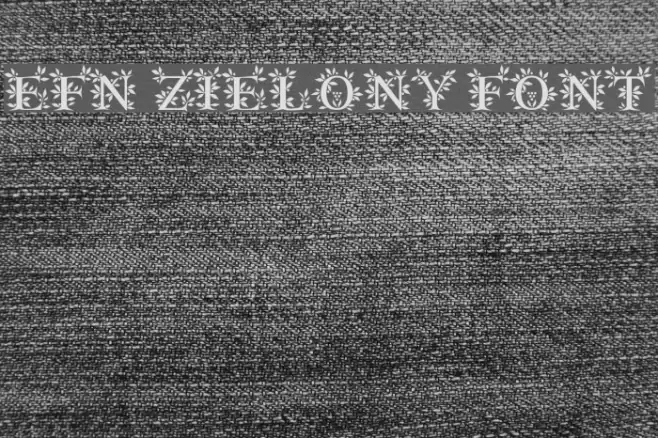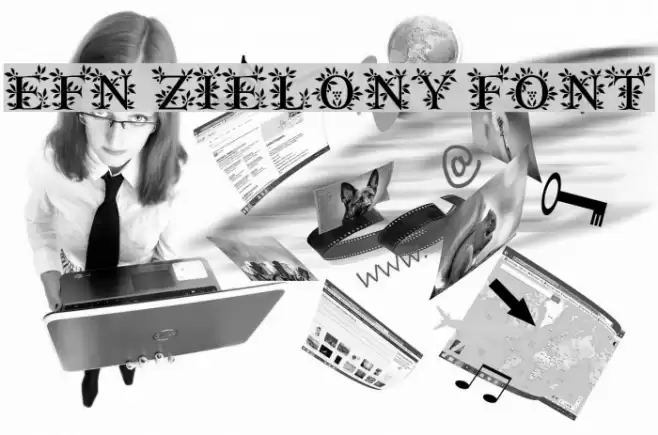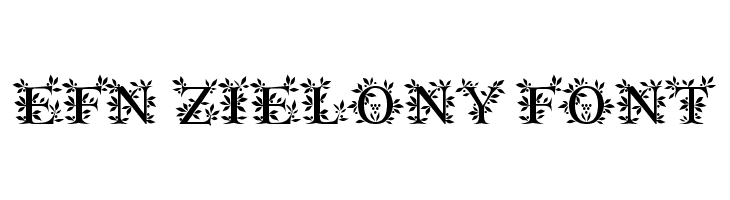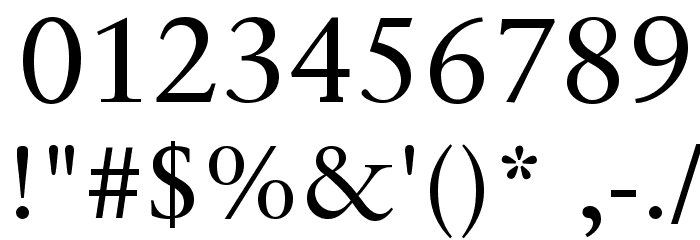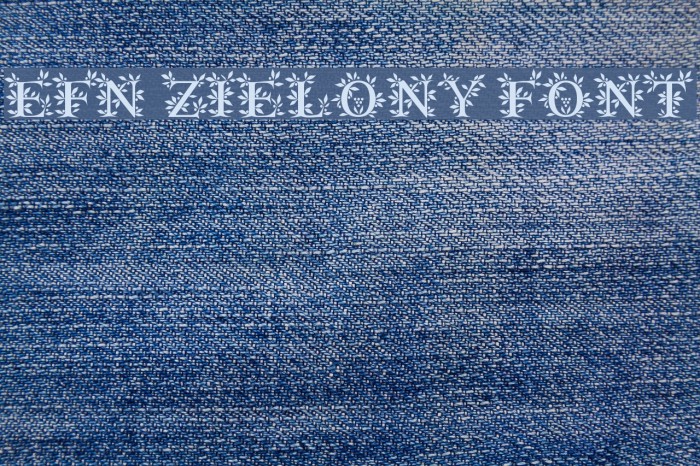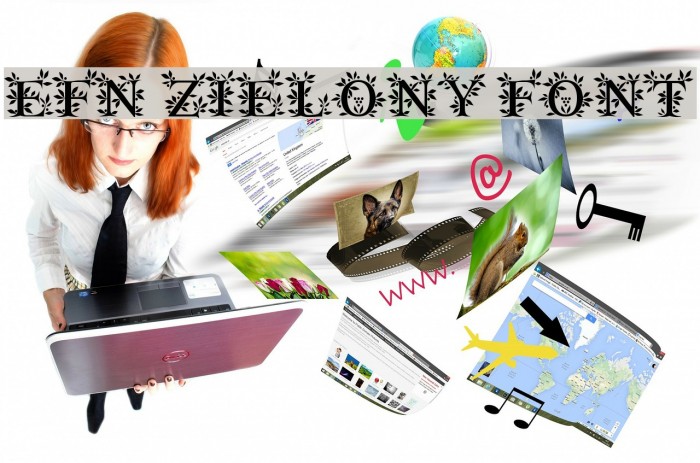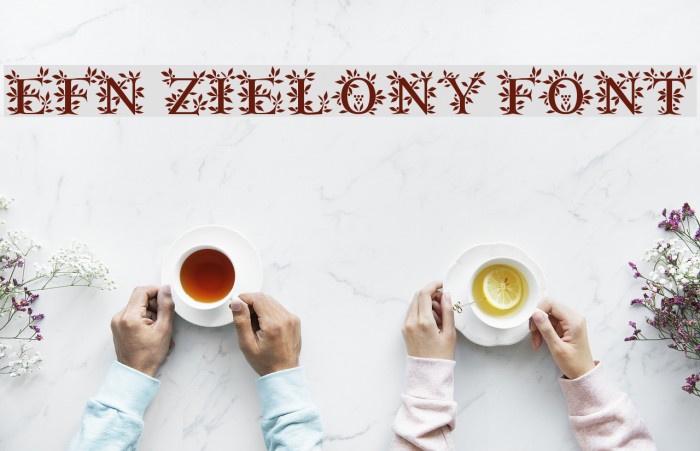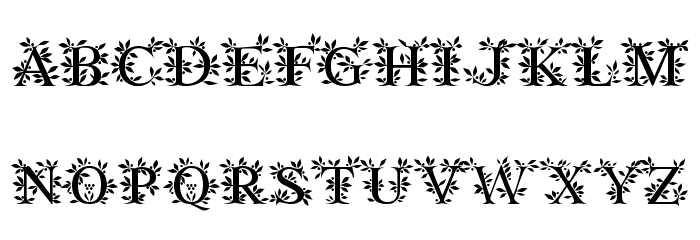
EFN Zielony Font Description
This font features an intricate and decorative design, with each character adorned with leaf-like embellishments that create a unique and artistic appearance. The uppercase letters are particularly ornate, showcasing a blend of classic serif elements with nature-inspired details. The lowercase letters maintain a similar style, though slightly less elaborate, ensuring readability while retaining the decorative theme. The numerals and special characters are more straightforward, providing a balance between functionality and style. This font is ideal for projects that require a touch of elegance and creativity, such as invitations, branding, or artistic displays.
A decorative font with leaf-like embellishments on each character from Uncategorized fonts.
- Proposed Projects: Ideal for invitations, branding, artistic displays, and creative projects.
- Use Case: Headlines, Artistic displays, Invitations